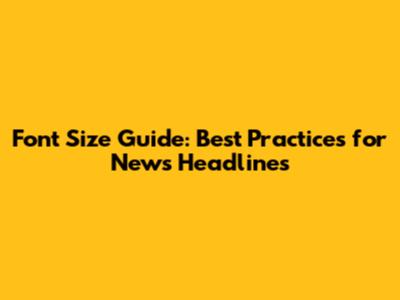
Font Size Guide: Best Practices For News Headlines
Font Size Guide: Best Practices for News Headlines
Choosing the right font size for news headlines is super important, guys! It's not just about making things look pretty; it’s about grabbing attention, making the content easy to read, and ensuring your message hits home. Let’s dive into why font size matters, what to consider when picking a size, and some best practices to keep in mind. Trust me, getting this right can seriously boost how well your news gets read and shared!
Why Font Size Matters for News Headlines
So, why should you even sweat the font size of your news headlines? Here’s the lowdown: visibility, readability, and impact. A headline is the first thing people see, and its size determines whether they’ll stop scrolling or keep on moving. Think of it like this: a tiny headline is like whispering in a crowded room – no one’s going to hear it. On the flip side, a headline that’s too large can be overwhelming and look like you’re shouting at your readers.
Visibility is all about making sure your headline stands out. In a sea of content, a well-sized headline acts like a beacon, drawing the reader's eye and enticing them to click. It needs to be big enough to be noticed but not so big that it feels obnoxious. The right font size ensures that your headline doesn't get lost in the noise.
Readability is another crucial factor. If your headline is hard to read, people simply won’t bother. A font size that’s too small can strain the eyes, especially on smaller screens. Conversely, a font that’s too large can disrupt the flow and make it difficult to grasp the message quickly. The goal is to find a sweet spot where the headline is both visually appealing and easy to digest at a glance.
Finally, the impact of your headline is directly related to its size. A larger font size can convey a sense of importance and urgency, signaling to the reader that the news is significant. However, it’s a delicate balance. Overdoing it can make your headline seem sensationalized or clickbaity, which can turn readers off. The right font size enhances the message without sacrificing credibility.
In short, font size isn't just a design choice; it's a strategic element that affects how your news is perceived and consumed. By paying attention to this detail, you can significantly improve the effectiveness of your headlines and, ultimately, the reach of your content.
Factors to Consider When Choosing Font Size
Alright, so you know why font size matters, but how do you actually pick the right one? There are several factors to keep in mind, including the platform, the type of content, the target audience, and the overall design.
Platform: Where will your headline be displayed? A headline on a website will have different requirements than one in a newspaper or on social media. Websites often allow for more flexibility in terms of font size and style, but you also need to consider how the headline will look on different devices. Responsive design is key, meaning your font size should adjust automatically to fit the screen size. Newspapers, on the other hand, have more rigid constraints due to space limitations. Social media platforms also have their own quirks, with some favoring larger, bolder headlines to grab attention in the fast-paced environment.
Type of Content: Is it breaking news, a feature article, or an opinion piece? The type of content can influence the font size you choose. Breaking news might warrant a larger, more attention-grabbing headline, while a feature article could benefit from a more subtle and elegant approach. Opinion pieces might use a font size that reflects the tone and style of the writer. Consider the overall context and purpose of the article when selecting your font size.
Target Audience: Who are you trying to reach? A younger audience might be more receptive to bold, modern fonts and larger sizes, while an older demographic might prefer more traditional fonts and slightly smaller sizes for better readability. Understanding your audience's preferences and habits is crucial for making informed decisions about font size. Consider conducting A/B testing to see which font sizes resonate best with your target audience.
Overall Design: How does the headline fit into the overall design of the page or publication? The font size should complement the other design elements, such as the body text, images, and whitespace. A harmonious design creates a cohesive and professional look, while a jarring mismatch can be distracting and off-putting. Pay attention to the visual hierarchy and ensure that the headline stands out without overwhelming the other elements.
By carefully considering these factors, you can make informed decisions about font size that will enhance the visibility, readability, and impact of your news headlines. It's all about finding the right balance and creating a design that effectively communicates your message to your target audience.
Best Practices for News Headline Font Size
Okay, let's get down to the nitty-gritty. Here are some best practices to guide you in choosing the perfect font size for your news headlines:
Conclusion
So, there you have it! Choosing the right font size for news headlines is a mix of art and science. It’s about understanding your audience, knowing your platform, and keeping readability top of mind. By following these guidelines and using the right tools, you can create headlines that not only grab attention but also keep readers engaged. Now go out there and make some headlines that rock!